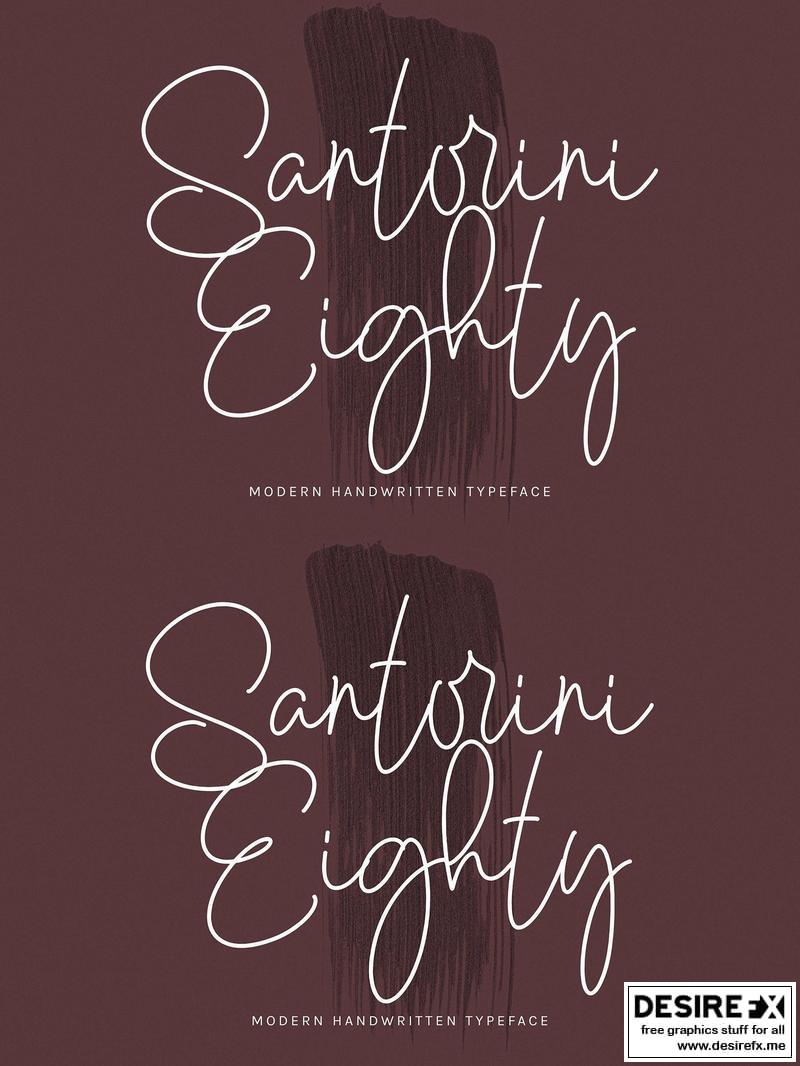
Santorini Eighty VEZ95MG
Santorini Eighty font with new style, this font will perfect for many different project ex: quotes, logo, blog header, poster, banding, letter, invitation, stationery, etc…